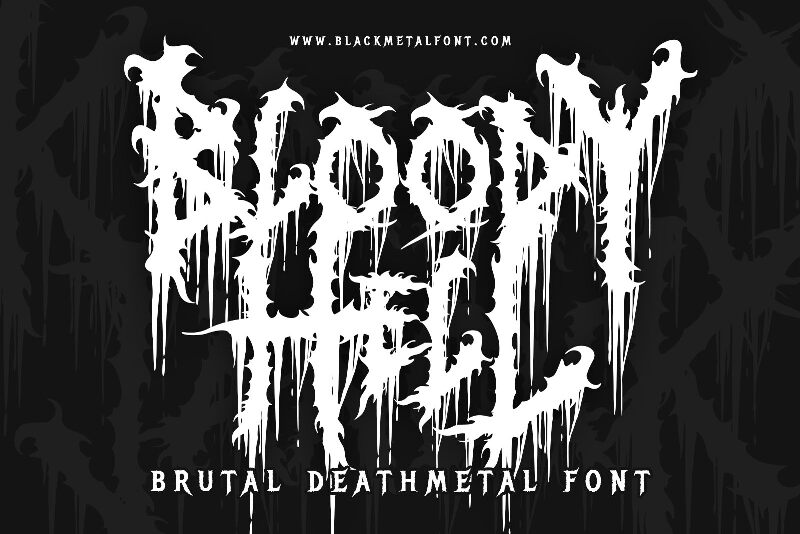
Bloody Hell font by Blackmetalfont is Grungy, distressed, high contrast, sharp edges, dark mood, dripping effects. It features chaotic strokes and irregular shapes with a heavy and bold appearance making it perfect for making a statement. Experience the horror with our Bloody Hell Font. Free for personal use.
Perfect to make an impact on posters, album covers, book covers especially horror-themed designs. Create frightening artwork for social media flyers or trailers to music videos using this beautiful typeface - whatever you choose it will bring your projects to life!